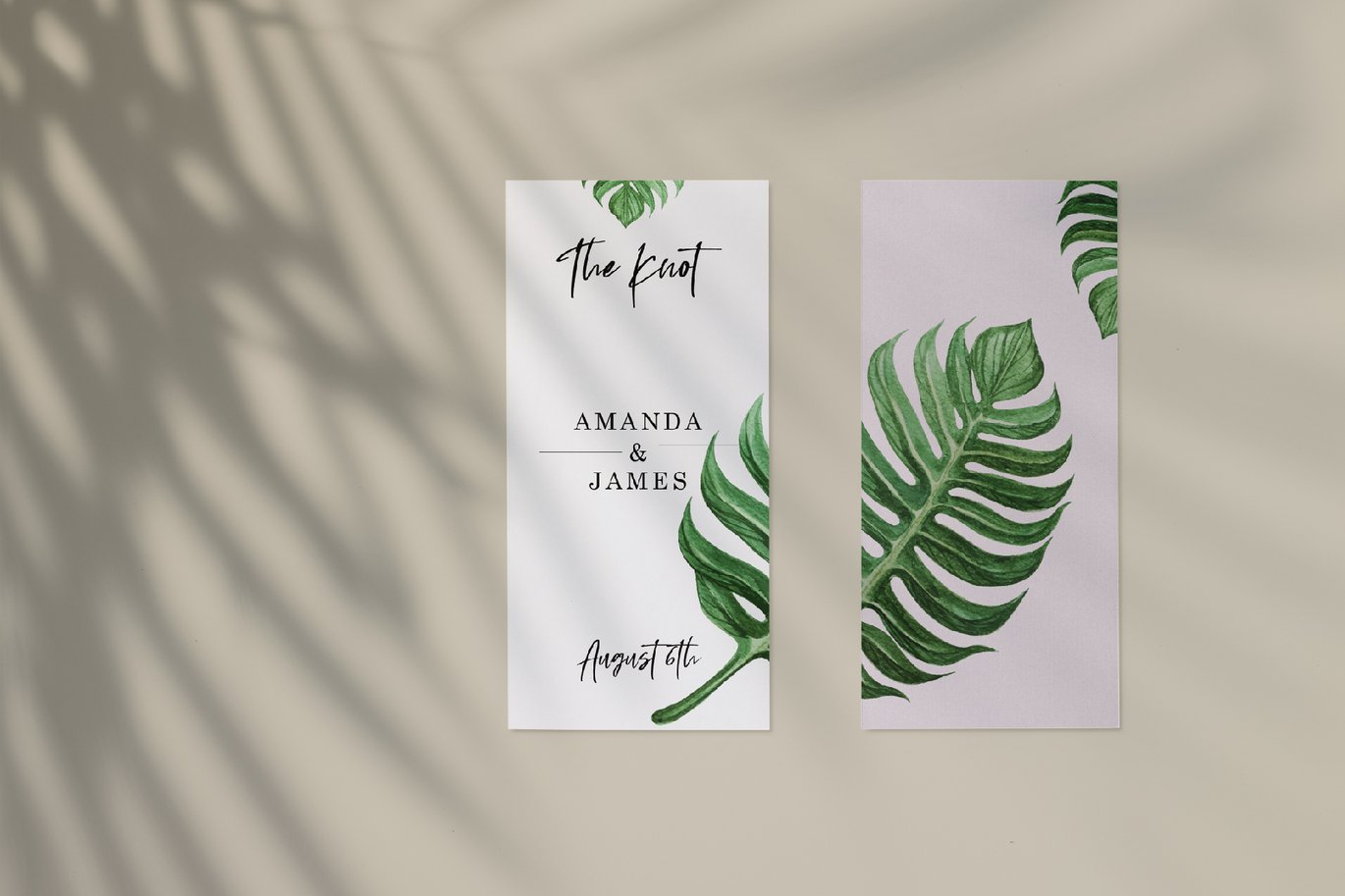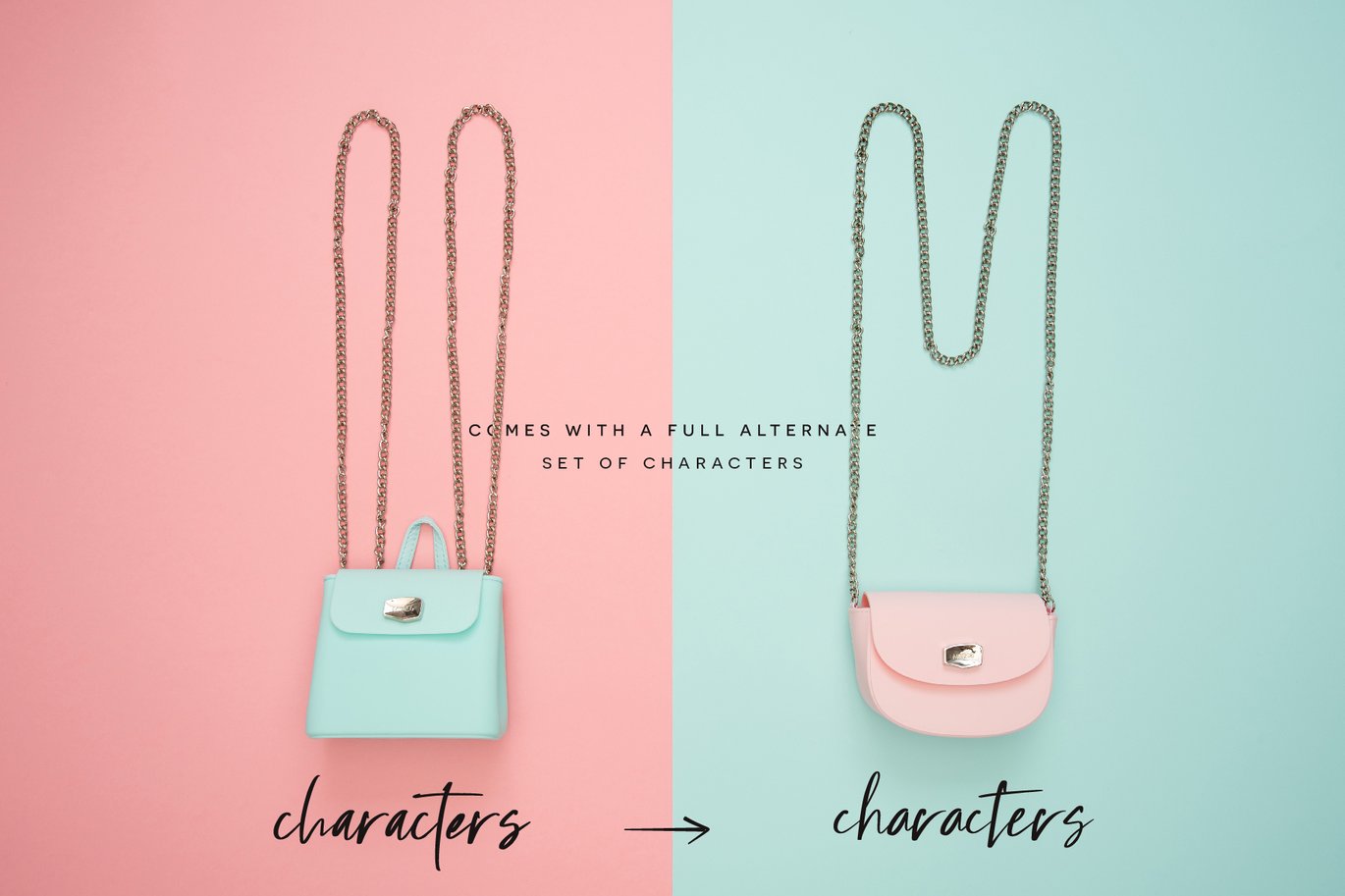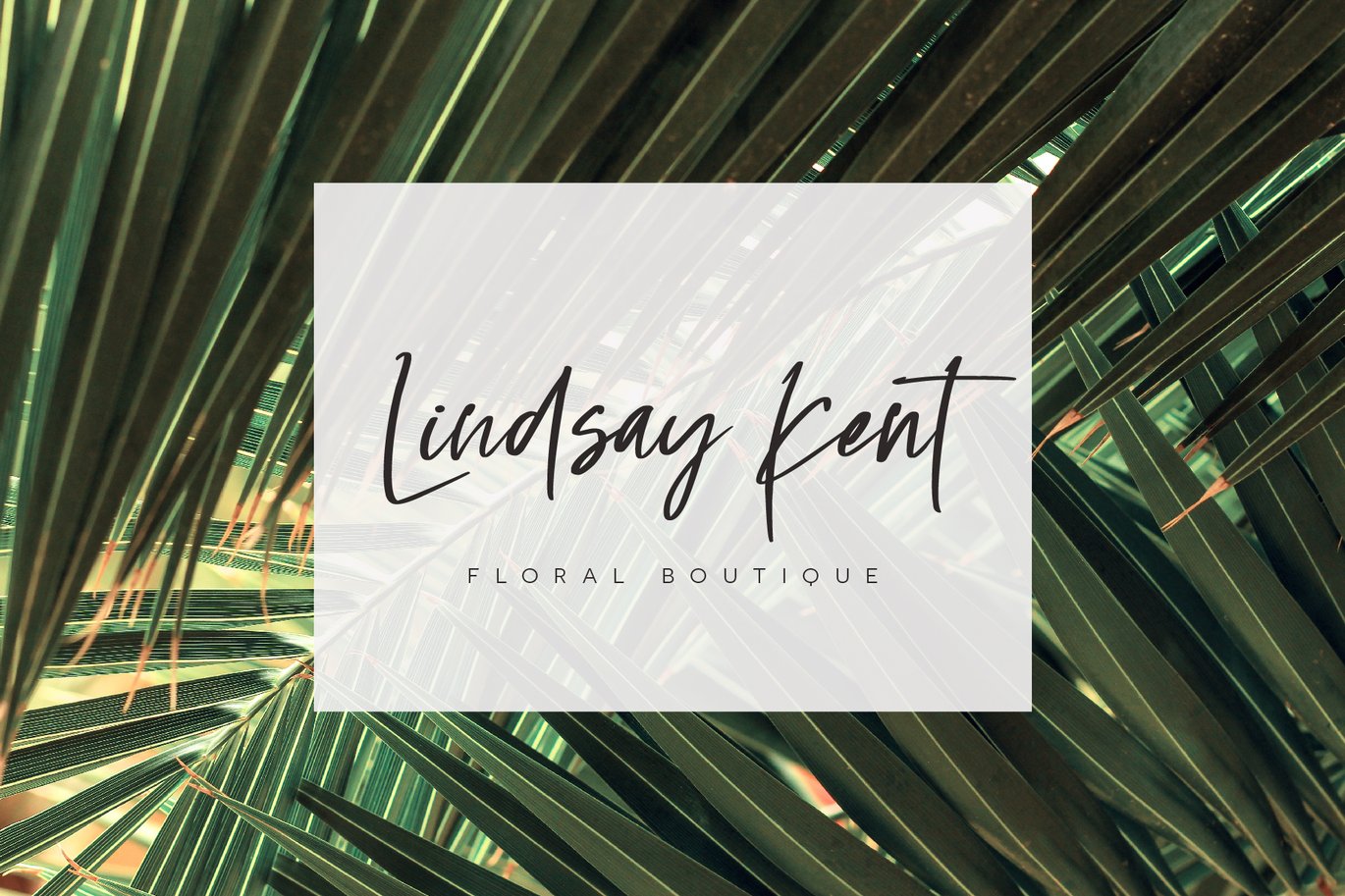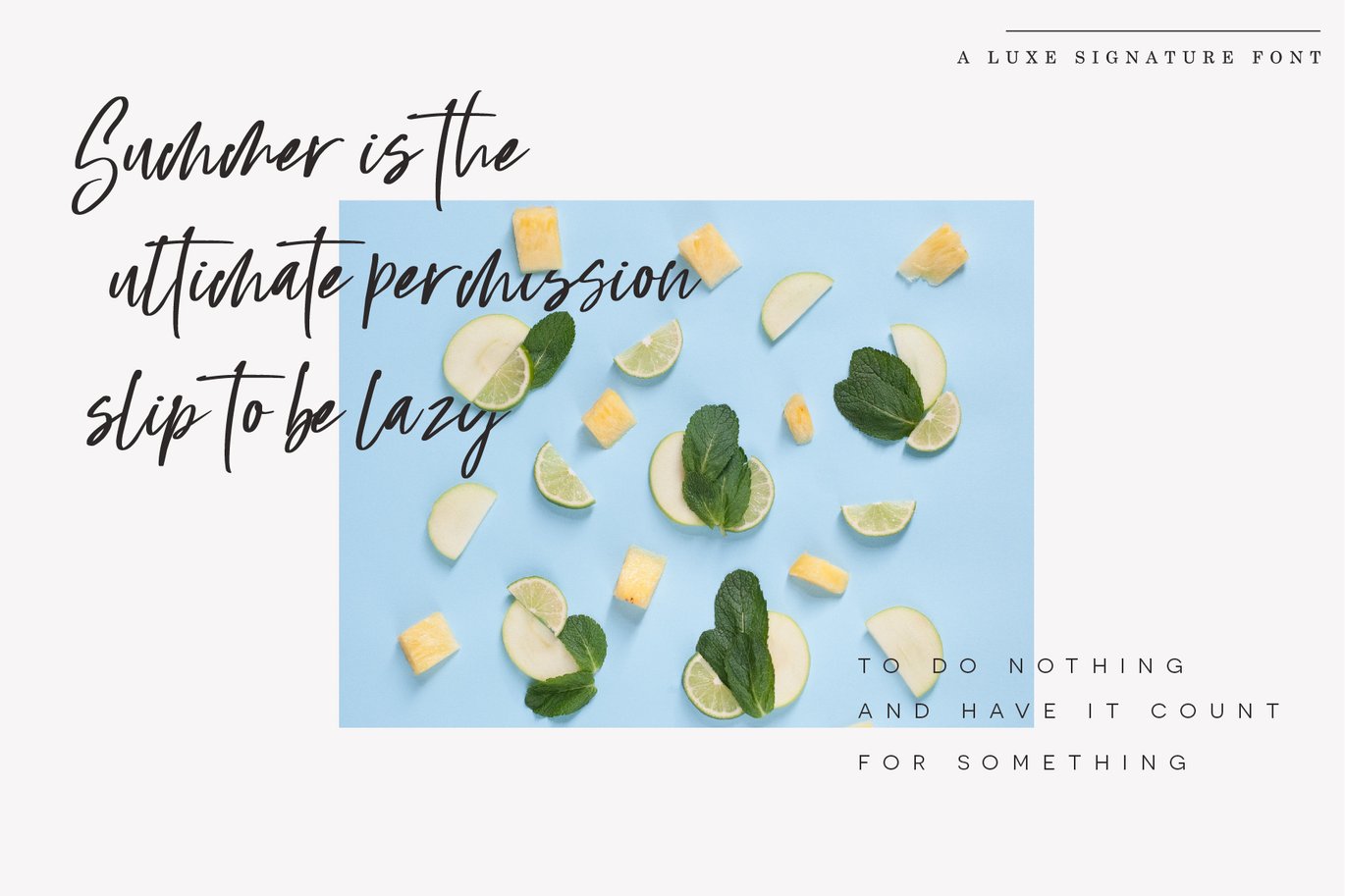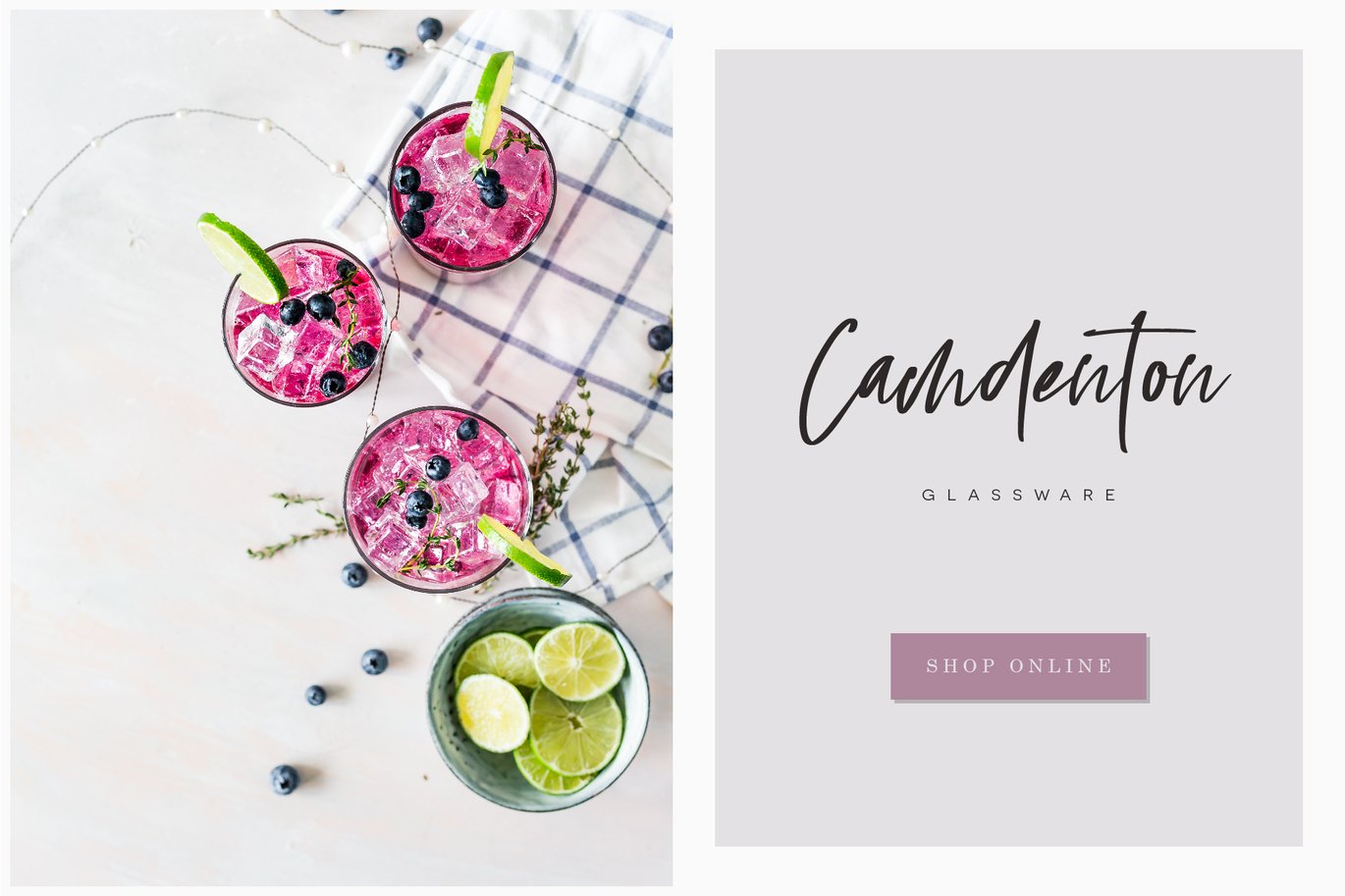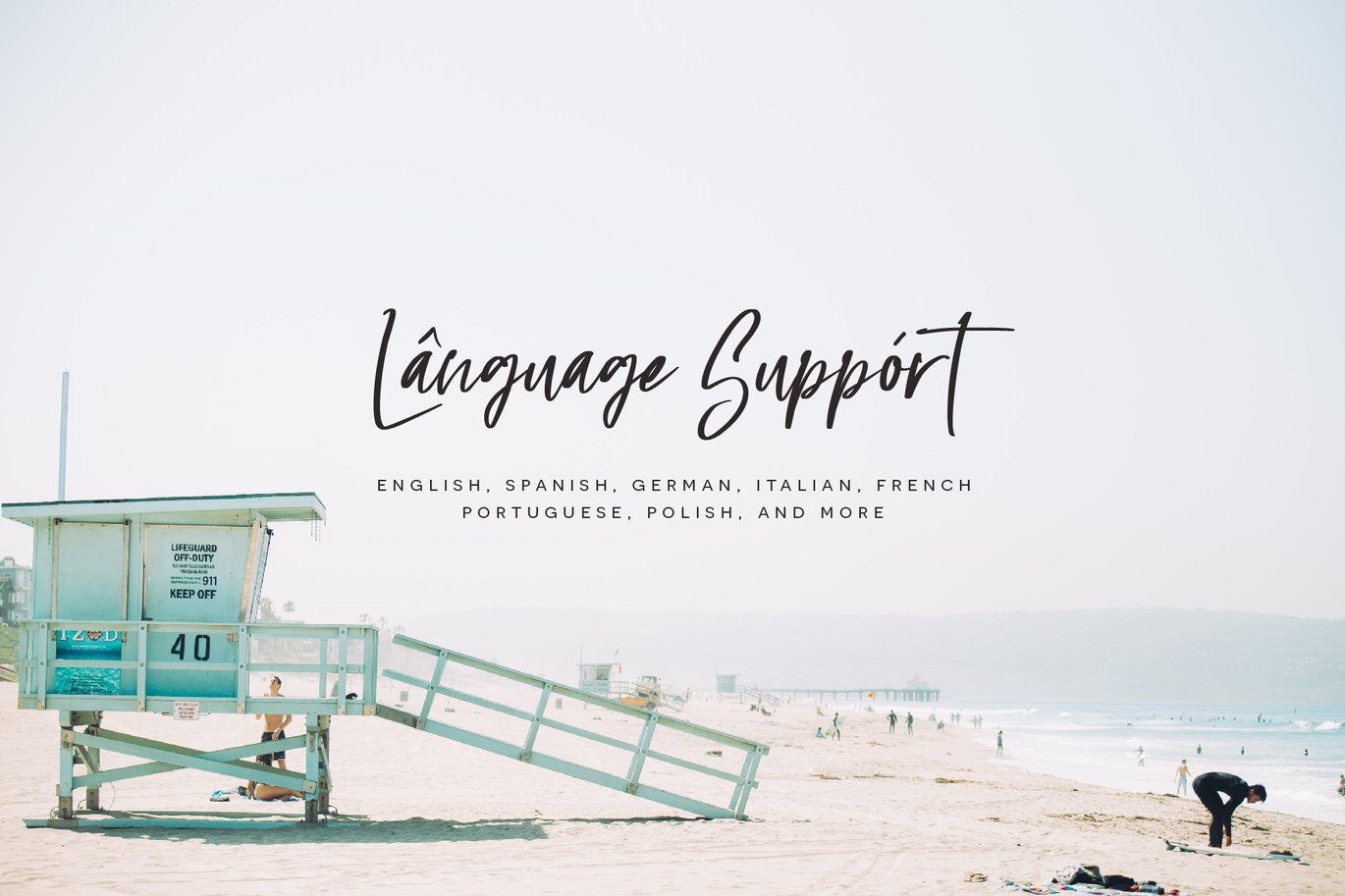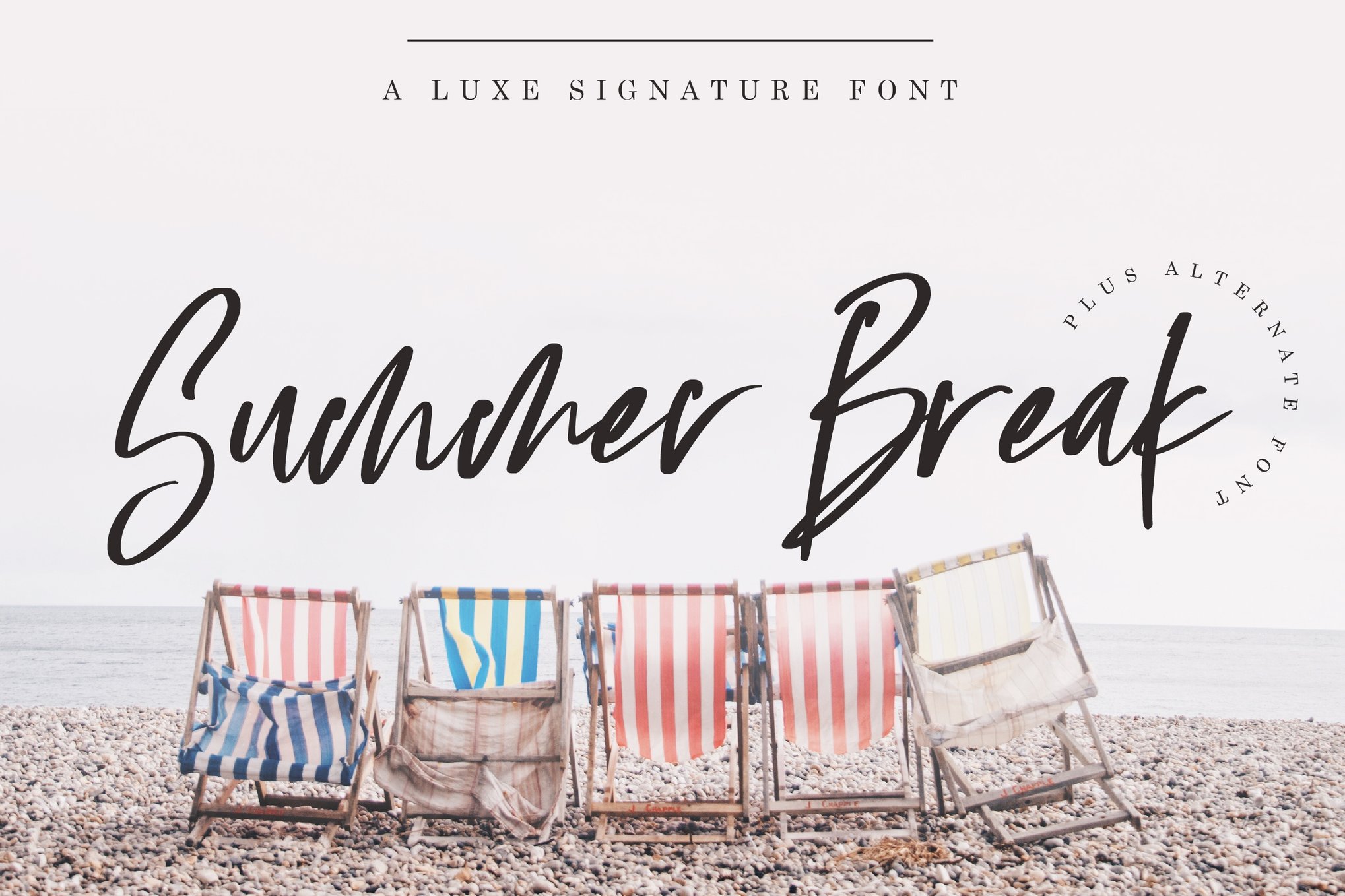
Summer Break Font
This Summer Break Font is perfect for vacation resort branding, summer camp materials, beach club signage, tropical travel agencies, seasonal restaurant menus, holiday merchandise designs, summer festival promotions, leisure activity centers, vacation rental communications, and relaxing getaway applications.
What makes this Summer Break Font exciting is its carefree joy that captures the liberating freedom and sunny relaxation of summer vacation bliss and holiday excellence. The font features relaxed letterforms with vacation characteristics that convey summer freedom, holiday happiness, and leisure authenticity. Its carefree character and vacation-inspired design make it ideal for brands seeking to communicate summer joy, vacation excellence, and holiday relaxation in travel and leisure markets.
The Summer Break Font family includes light, regular, medium, and bold weights with vacation alternates, summer variants, and relaxing flourishes. This comprehensive leisure font family provides designers with joyful typographic tools to create carefree compositions while maintaining the summer character essential for vacation brands and holiday communications.
Travel companies and leisure organizations consistently choose Summer Break Font Free Download for projects requiring authentic vacation appeal and summer relaxation credibility. This font's distinctive carefree character perfectly captures the holiday excellence and summer joy that resonate with audiences who appreciate vacation experiences, leisure activities, and brands that embody summer freedom and holiday happiness.
The relaxed construction of Summer Break Font showcases joyfully designed letterforms with vacation proportions that ensure exceptional happiness across all leisure applications. Its sunny appearance and carefree character create memorable impressions while maintaining the readability necessary for effective vacation communication and summer materials.
Professional designers appreciate how Summer Break Font brings immediate vacation authenticity and summer joy to brand communications. The font's carefree nature allows organizations to communicate holiday excellence and vacation happiness while maintaining the professional quality necessary for effective positioning in travel and summer leisure markets.
The liberating appeal of Summer Break Font makes it particularly effective for brands emphasizing vacation freedom, summer relaxation, and holiday joy. Its sunny character resonates strongly with audiences who appreciate leisure time, vacation experiences, and brands that represent the carefree happiness and liberating freedom of summer vacation achievement.
Whether developing branding for vacation resorts or creating materials for summer leisure companies, Summer Break Font Free Download provides the joyful typographic foundation that vacation brands need to communicate their summer excellence, holiday happiness, and the carefree relaxation that defines vacation freedom and summer leisure achievement.